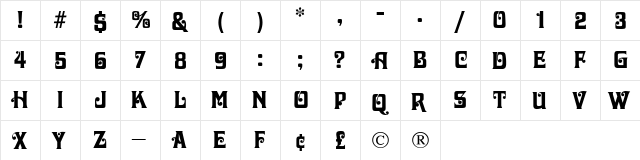
Topiary Regular
Design Context for Topiary Typeface
Topiary is a composed and adaptable typeface that performs quietly and consistently across a wide range of design contexts.